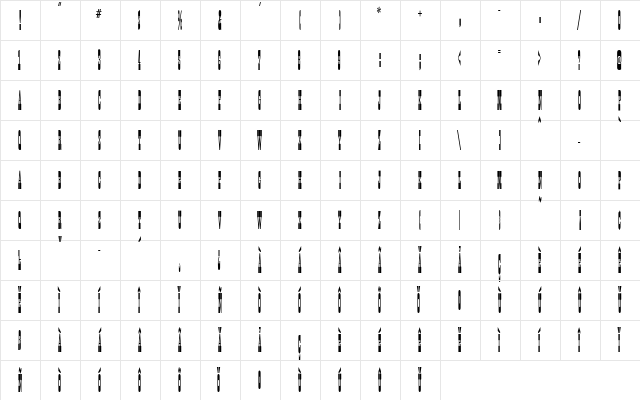
AIWood FrenchCondensed
Design Context for AIWood Typeface
AIWood echoes the hand-painted signage and woodblock typography of the American frontier, with a warm, rugged personality.
A natural fit for craft spirits, ranch branding, rodeo events, and Americana-inspired design work.
Font Pairing: Combine AIWood with a simple slab or neutral sans — period-accurate companions reinforce the vintage feel without competing for attention.
Pro Tip: Use AIWood for short, impactful bursts of text — it shines in poster headlines and product names rather than extended copy.